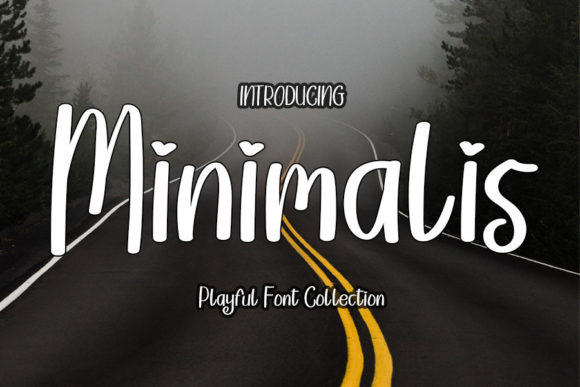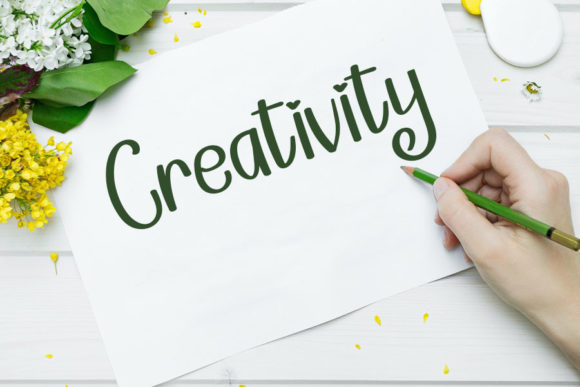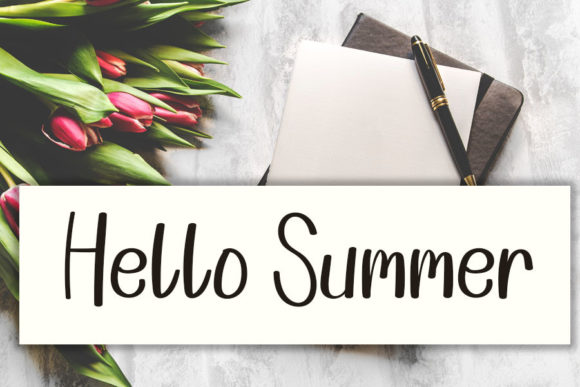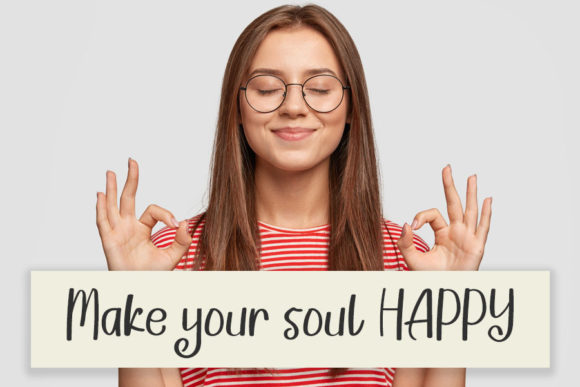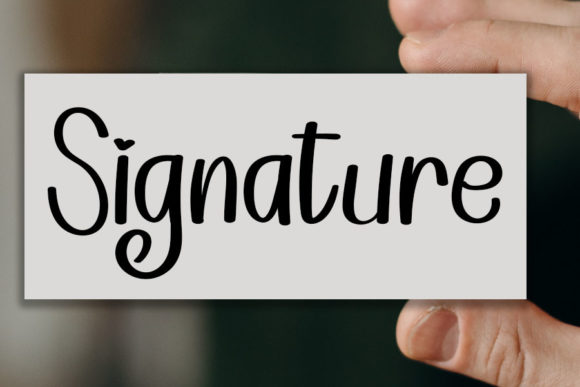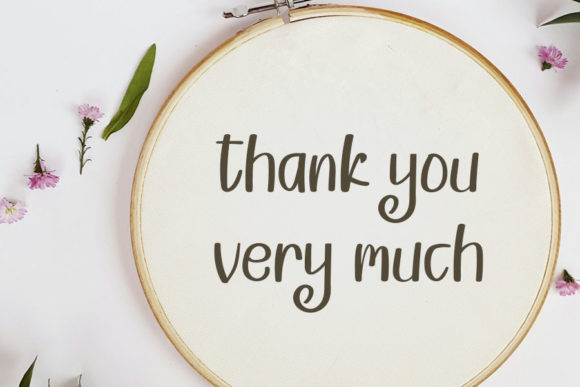
Minimalis Font
About Minimalis Font
Minimalis is a cute and friendly handwritten font. Playful and a little bit quirky, this font is the perfect fit for all of your logos, branding, posters, and crafty DIY projects.